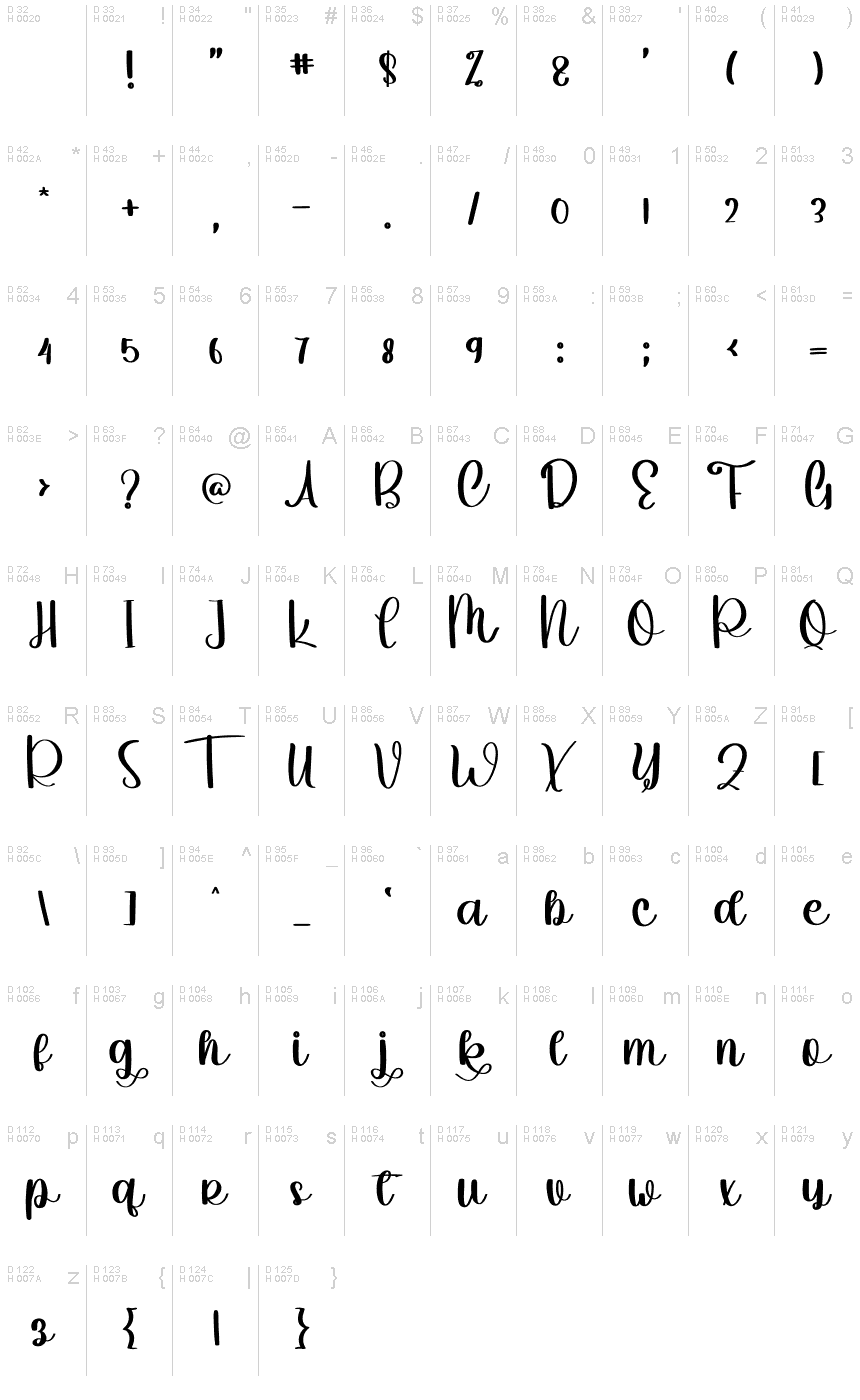
Vintage Stickers
Vintage Stickers, designed by FreshtypeINK is a beautiful curly calligraphy font perfect for adding a romantic and nostalgic feel to any project. It works great for wedding invitations, book covers, greeting cards and more!